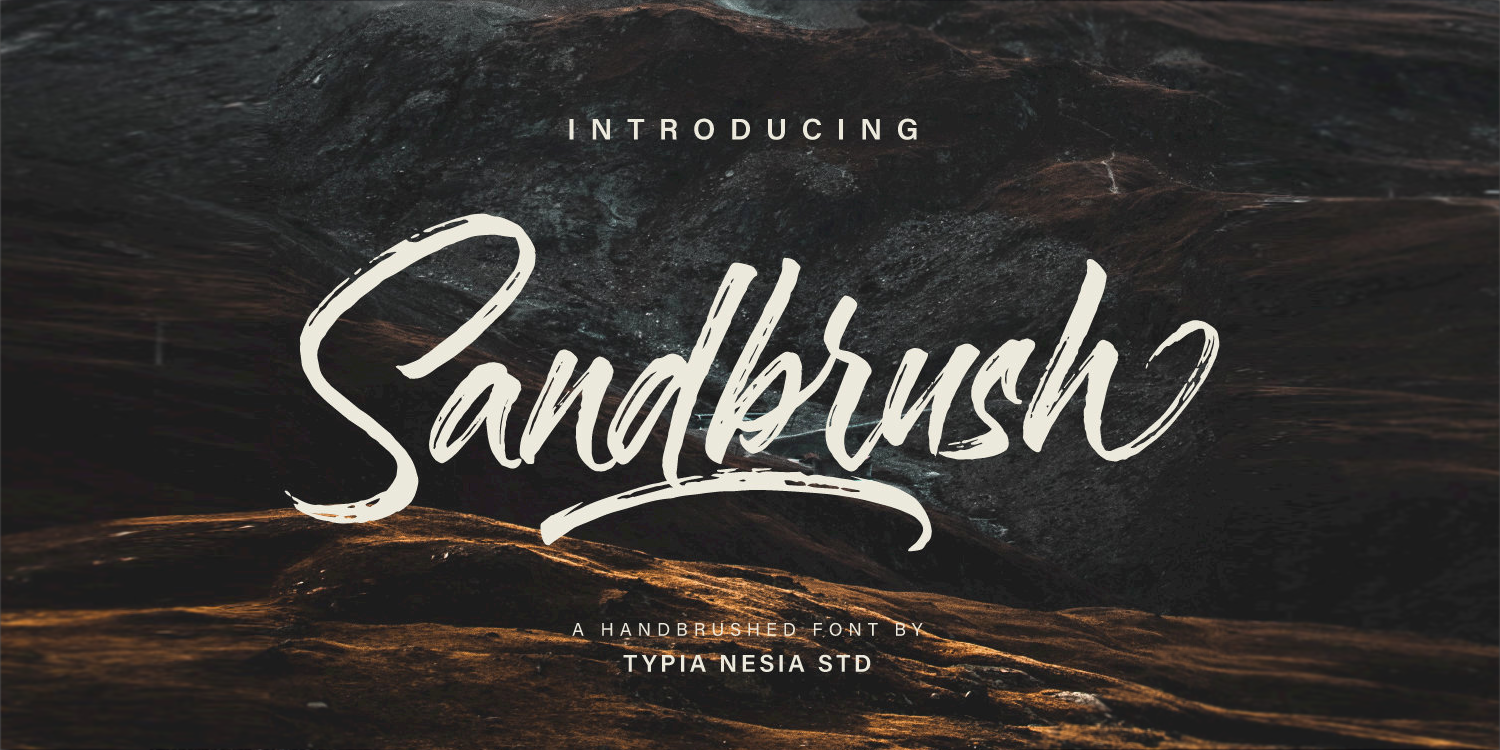
Sandbrush Font Free Download is a bold and artistic brush script typeface that brings energy and creativity to any design. With its dynamic strokes, textured appearance, and hand-painted feel, this font is perfect for posters, branding, social media graphics, packaging, and event promotions that need a raw and expressive style.
The organic, flowing letterforms of Sandbrush offer excellent readability while delivering a strong visual impact across both digital and print media. Whether you're designing bold headlines, creative merchandise, or eye-catching marketing materials, Sandbrush Font Free Download adds an authentic, handcrafted look to your projects.
Available in various styles and fully optimized for creative flexibility, Sandbrush empowers designers to craft expressive, high-energy visual compositions. Download Sandbrush Font Free Download today and infuse your designs with bold, artistic spirit.